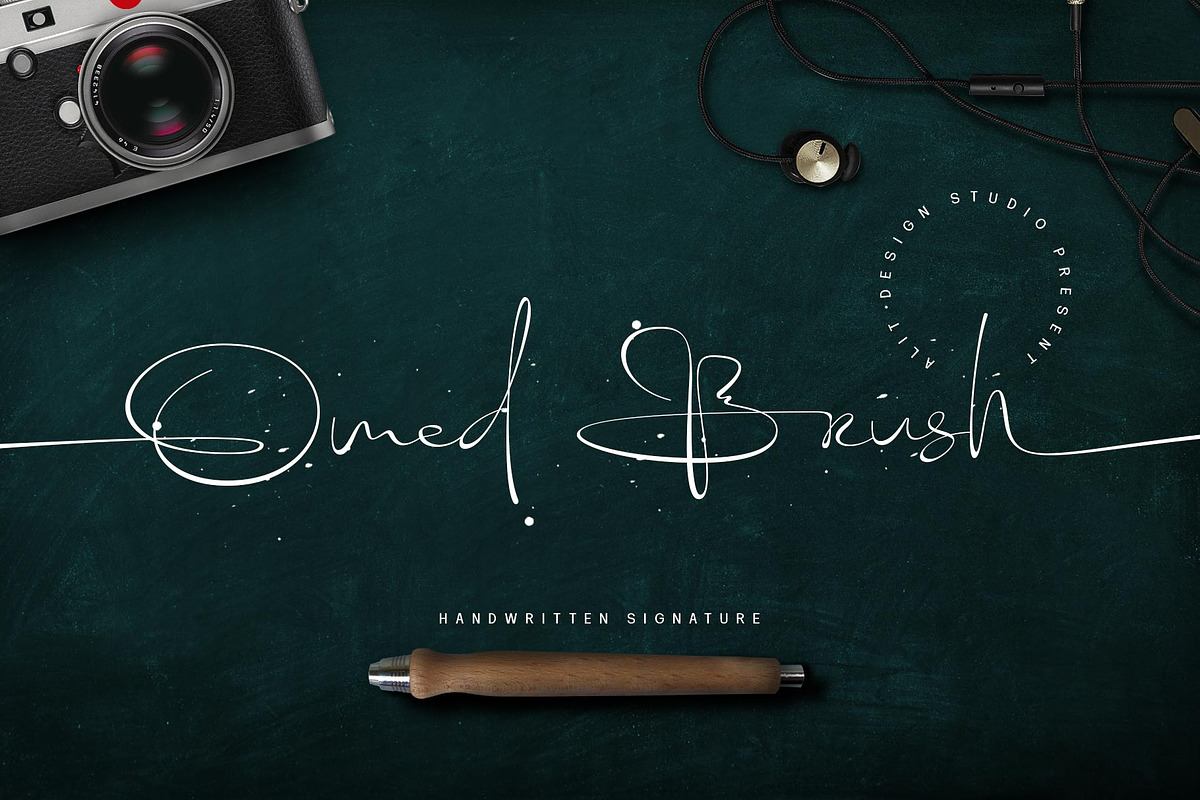
Omed Brush Signature Script Font Free Download is a stylish and expressive handwritten typeface that captures the elegance of a natural signature with bold brush strokes. Perfect for personal branding, logos, wedding invitations, social media graphics, and high-end packaging, this font adds a personal yet luxurious feel to any project.
With its fluid motion, textured lines, and authentic ink-like detail, Omed brings a handcrafted charm to both print and digital designs. It works beautifully for designers looking to convey individuality, emotion, and sophistication in their typography.